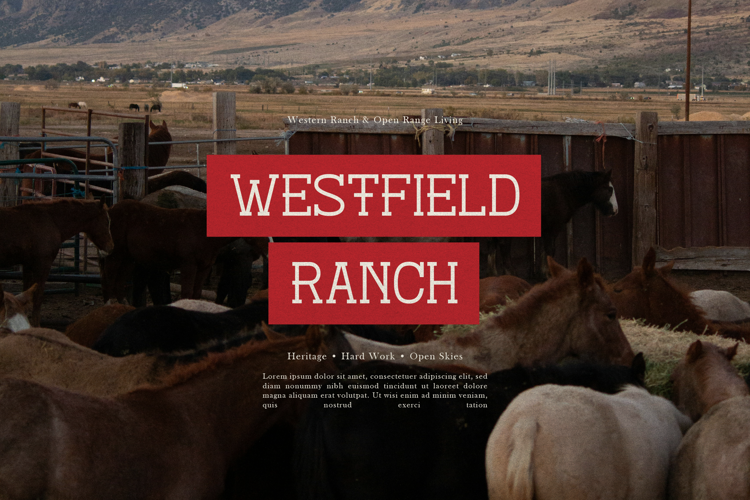
Therodit Font
Therodit | Slab Serif Typeface, is suitable for any projects such as: logos, branding projects, homeware designs, product packaging, mugs, quotes, posters, shopping bags, t-shirts, book covers, name card, invitation cards, greeting cards, label, photography, watermark, special events, and all your other lovely projects that need a Slab Serif taste.